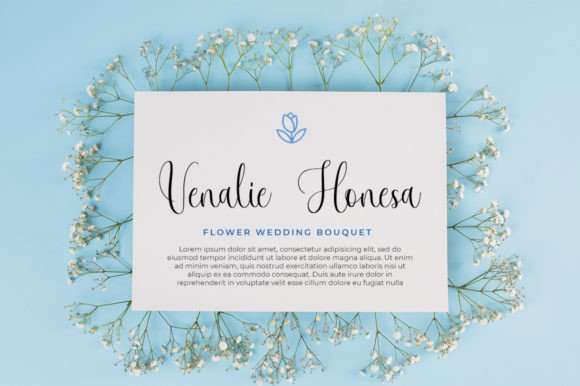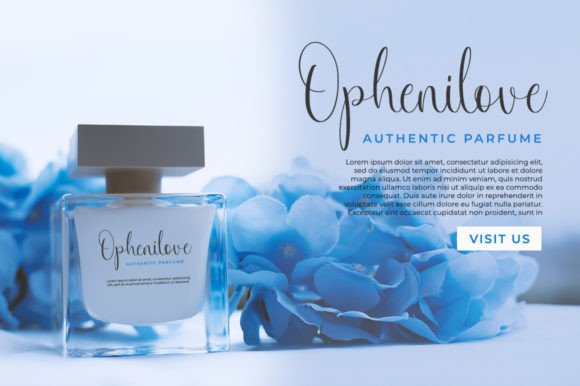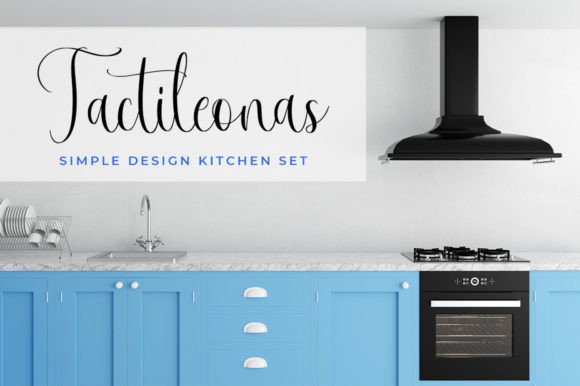
Introduction to Humingtones Font
Remember that moment when you’re working on your latest creative project and you can’t seem to find the perfect font to match your vision? The search is over with the introduction of Humingtones Font, a stylish script font that offers a personal touch to your art project with an elegant, classy and modern look.
As a valuable design resource, Humingtones Font is perfect for designers looking to add a touch of sophistication to their work. With its high-quality design and transparent background, this font is ideal for use in a variety of creative projects, from graphic design to digital art.
Key Features of Humingtones Font
- High-quality design resource with a unique, creative style suitable for various projects.
- Perfect for designers working on creative projects that require a distinctive, eye-catching font.
Honest Review: Humingtones Font
As a designer, I’m always on the lookout for high-quality design resources to elevate my creative projects. Recently, I had the opportunity to try out the Humingtones Font, and I must say, it’s been a pleasant surprise.
Here are some of the things that work well with the Humingtones Font:
- ✨ Unique and quirky design style that adds a touch of personality to any project
- ✨ High-quality vectors that ensure crisp and clear text rendering
- ✨ Transparent background, making it easy to overlay on any image or design
- ⚠️ Limited character set, which may not be suitable for projects that require a wide range of characters
- ⚠️ May not be suitable for use in small text sizes, as the design may become pixelated
Overall, I’m impressed with the Humingtones Font. While it may not be perfect, it’s a great addition to any designer’s toolkit. With its unique design style and high-quality vectors, it’s an excellent choice for creative projects that require a touch of whimsy and personality.
Tips for Getting the Most Out of Humingtones Font
For optimal results, use the Humingtones Font with a transparent background and experiment with different font sizes and colors to achieve a unique look.
The Humingtones Font is ideal for:
- Brand logos and identity designs
- Marketing materials, such as flyers and brochures
- Web design and development projects
Can I use the Humingtones Font for print projects?
Yes, the Humingtones Font is suitable for print projects, including business cards, brochures, and posters. However, please ensure you check the font’s legibility at various font sizes and resolutions to ensure optimal print quality.